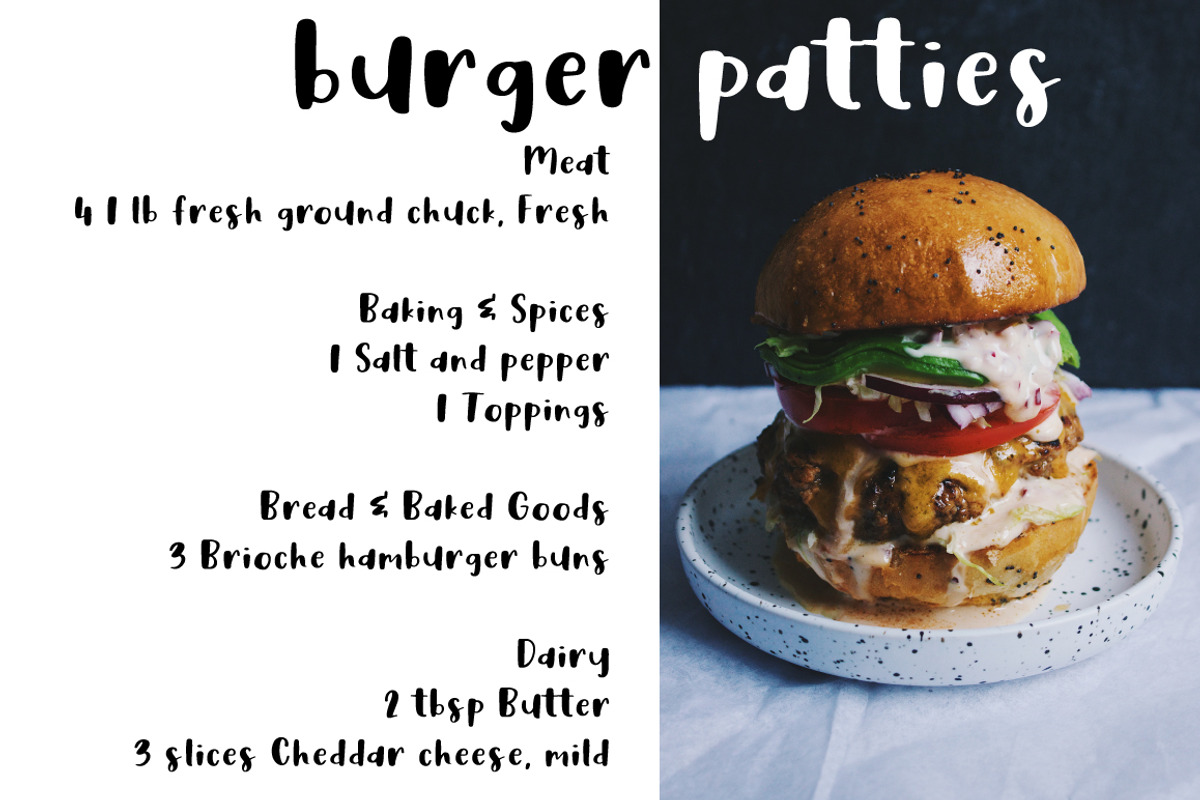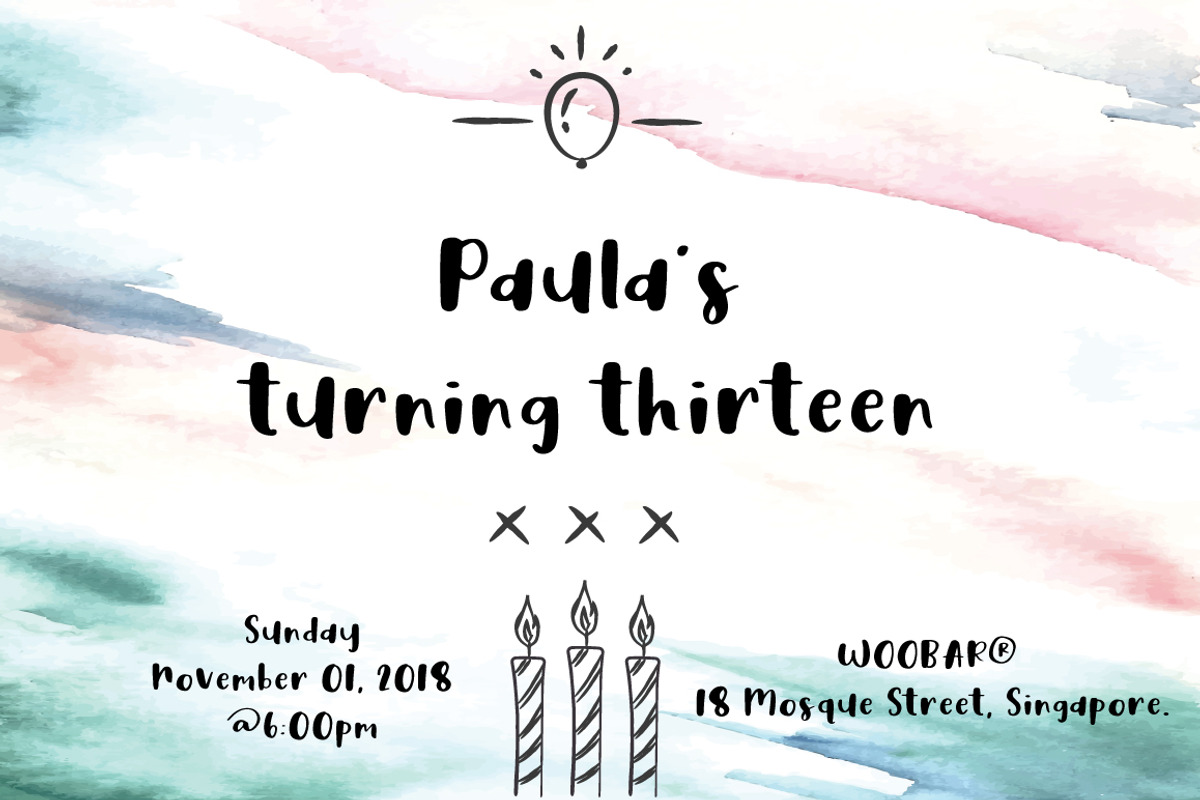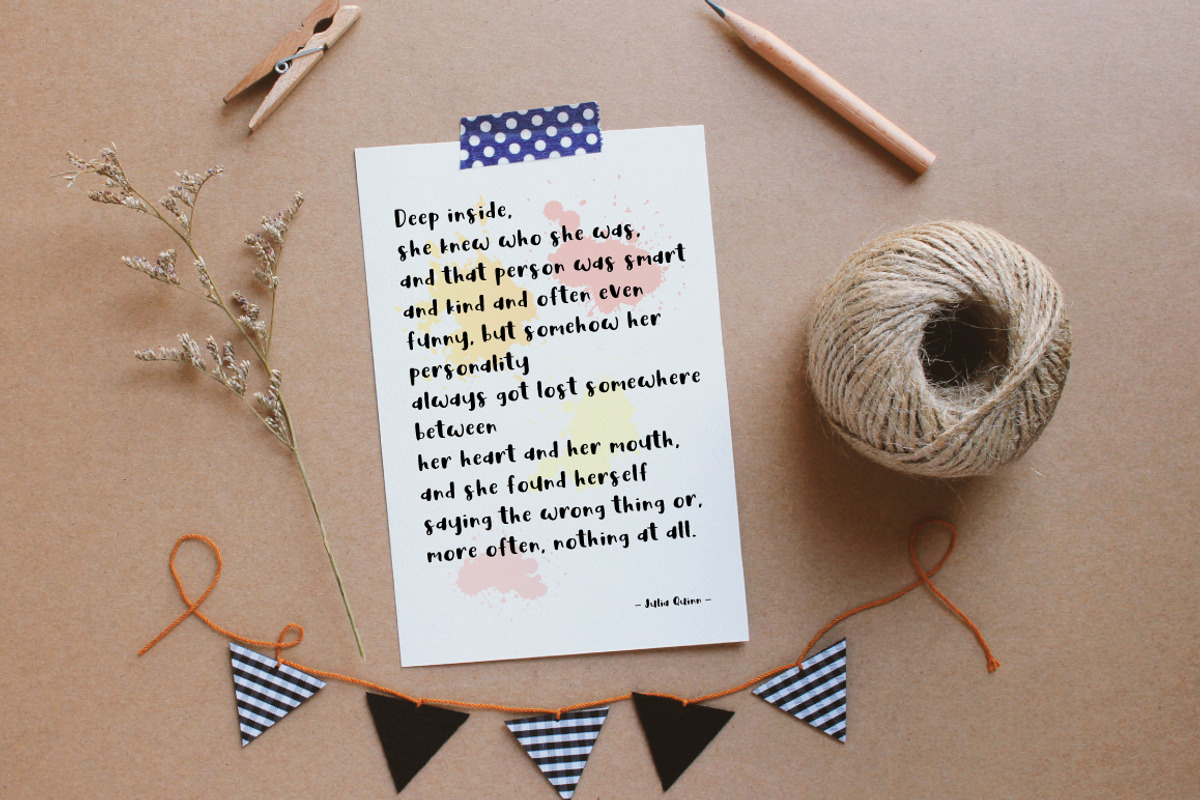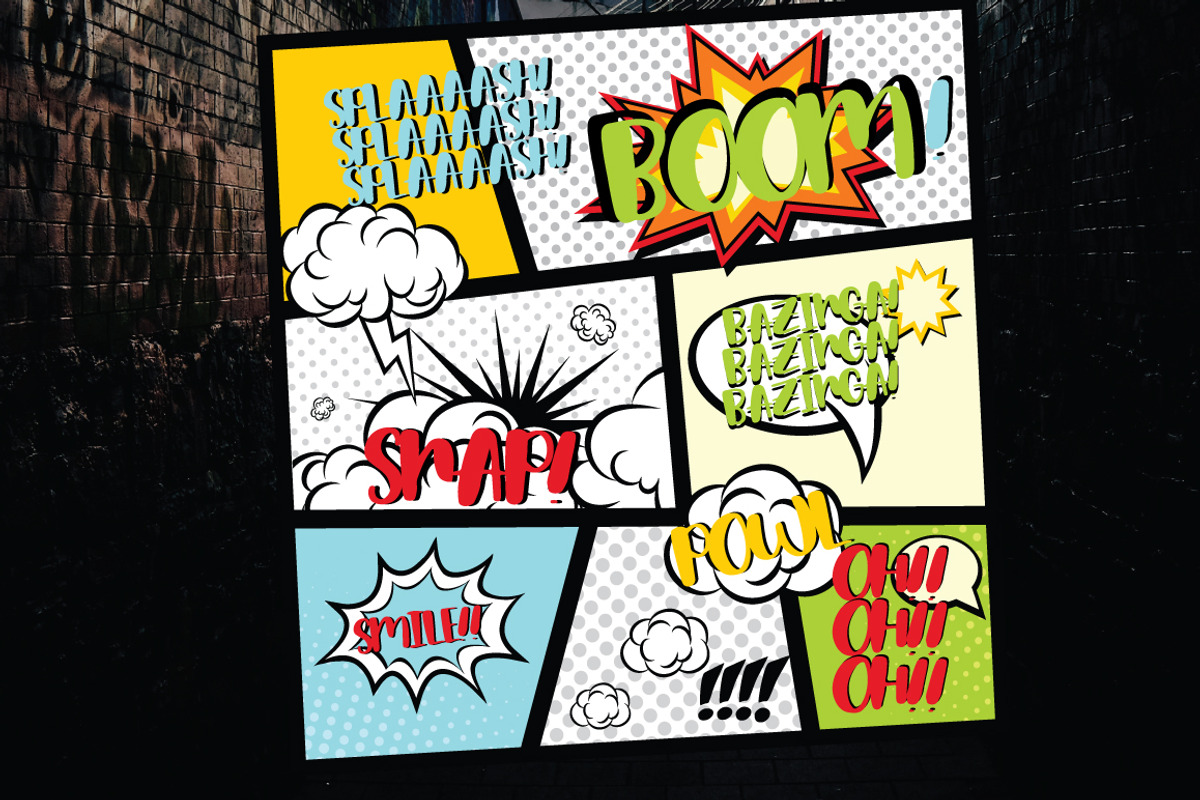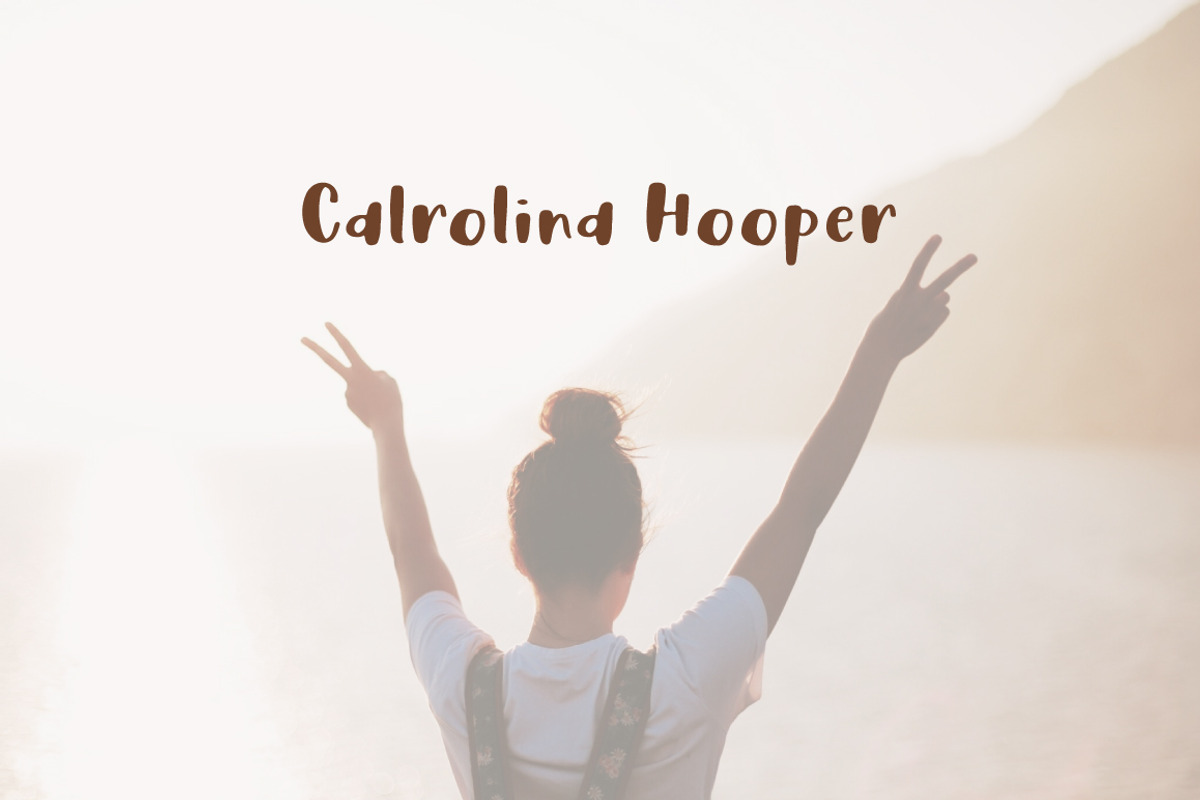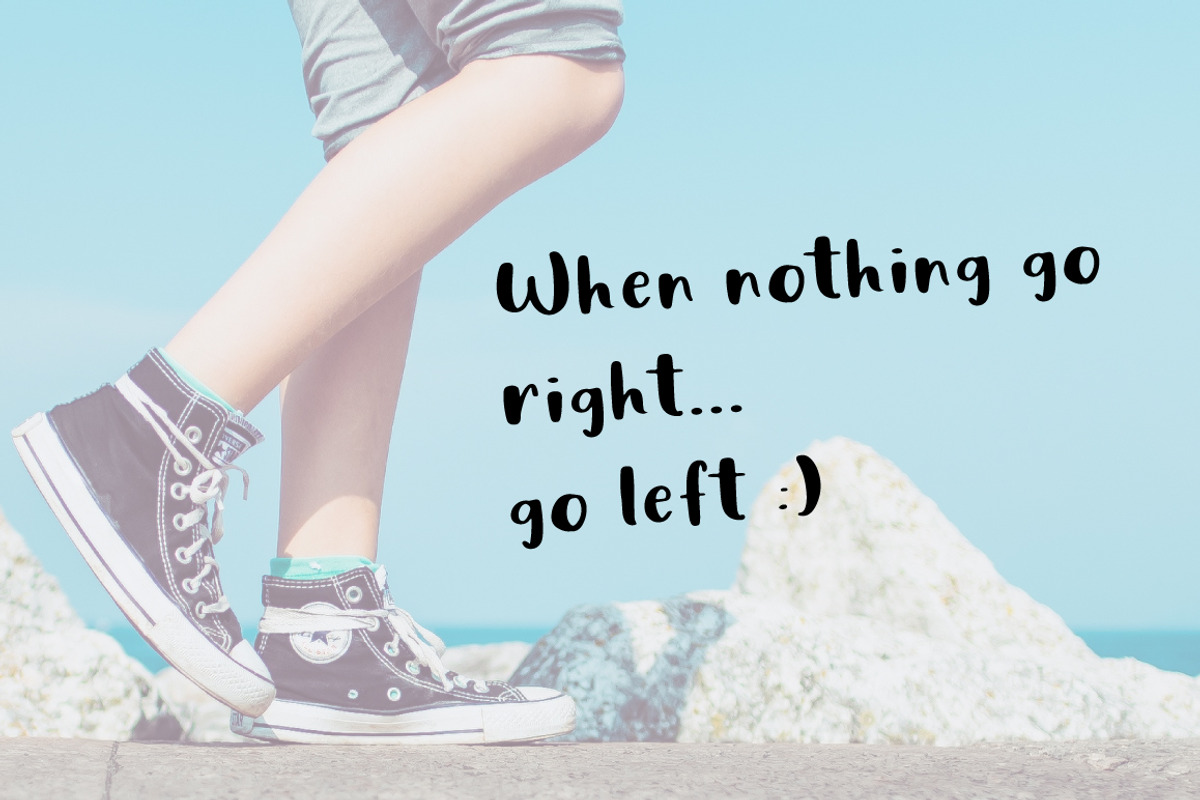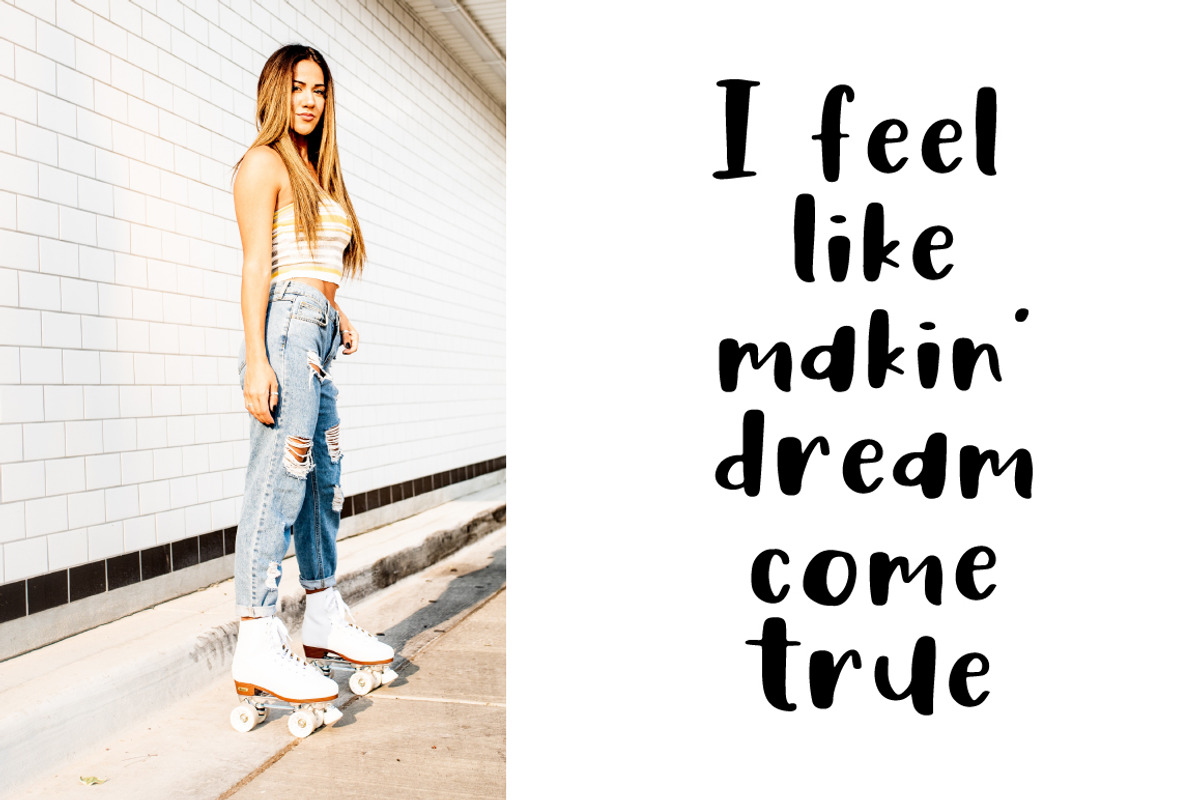
Chicago | A Chic Handwritten Font
Introducing Chicago - A chicly Stylist font perfect for high impact headlines
Every single letter has been creative carefully and Perfectly Playful new font pair. This font is a perfect script designed for making your set of invitations, Brand, blog posts, and more completely beautiful